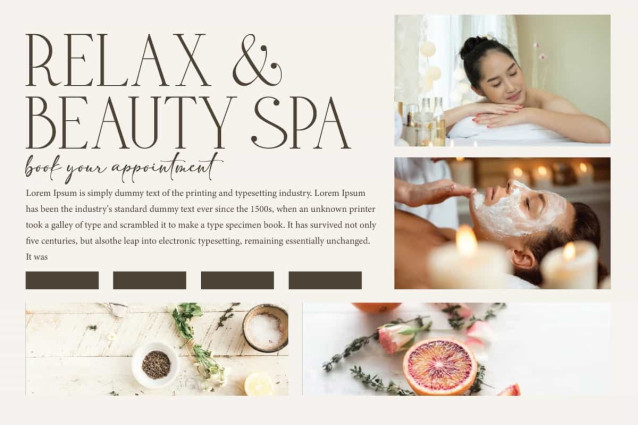
Sonaya Cantika Font
Sonaya Cantika Font is a sophisticated display serif font with an elegant and charming character, combining classic style with a modern touch. This font will be perfect for any projects, can be used for invitation, advertising, brand image, custom design, label, layout design, quotes, stationery, template design, website, and more!
Sonaya Cantika Font includes full set of Uppercase and Lowercase Basic Characters, Numerals, Punctuation, and Symbol. This font contain Ligature character that reflects elegance and exclusivity. Making it a perfect choice for a variety of fields, such as fashion, accessories and jewelry, beauty product, event or wedding organizer, florist, furniture, real estate, spa salon, etc.